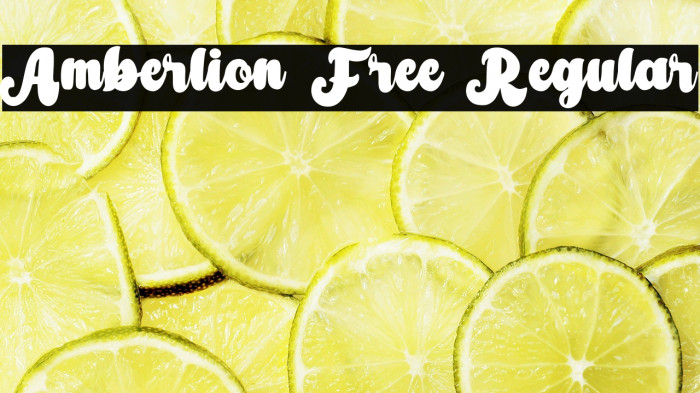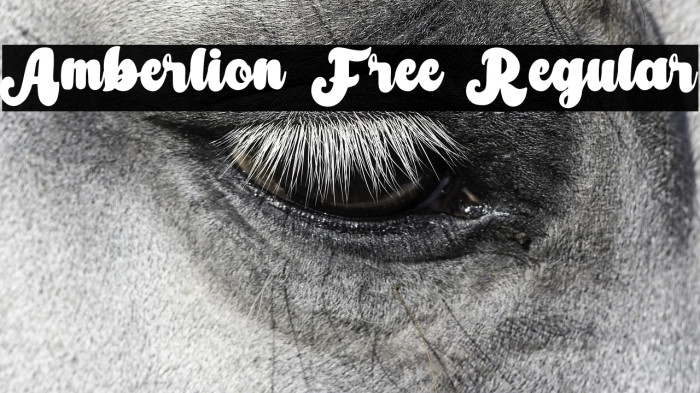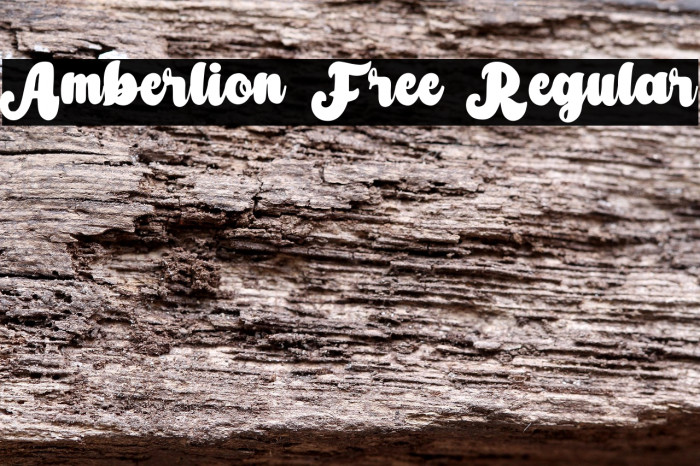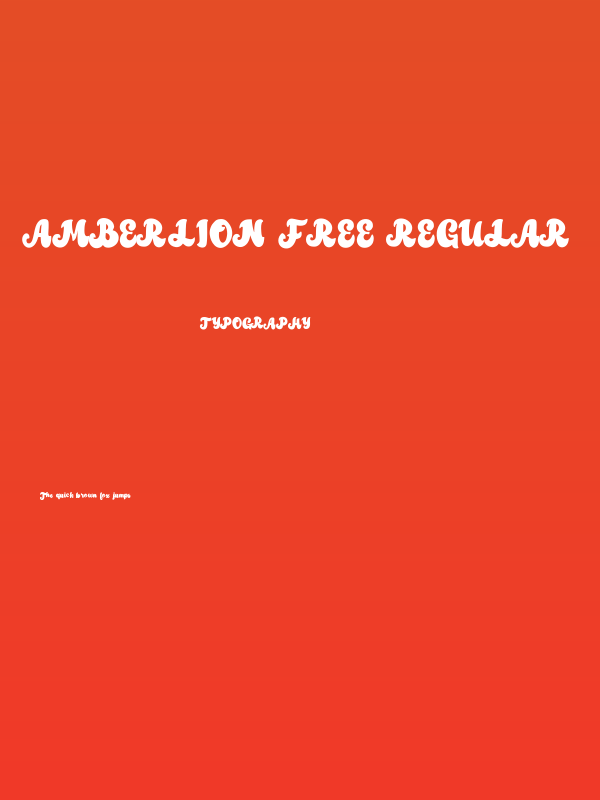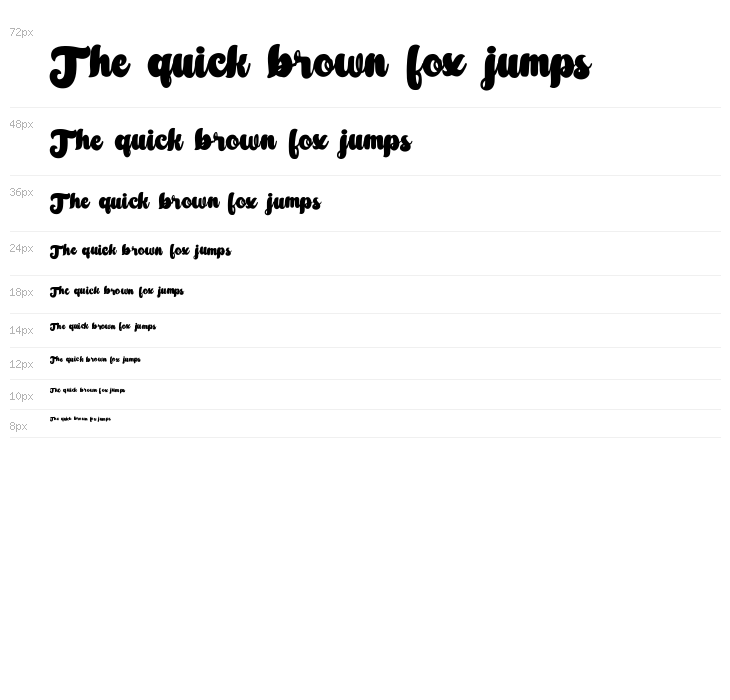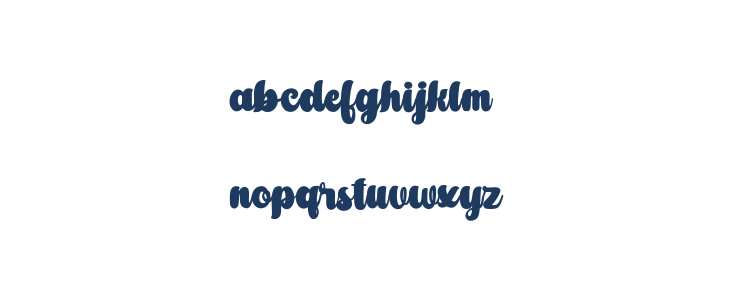
Amberlion Free Regular Font
Amberlion Free Regular Description
This font features a bold and playful style with a decorative flair. The characters are rounded and have a whimsical touch, making them stand out with their unique curves and flourishes. The uppercase letters are particularly eye-catching, with exaggerated serifs and a sense of movement. The lowercase letters maintain the same playful aesthetic, ensuring consistency across text. The numbers and special characters are designed to match the overall style, providing a cohesive look. This font is ideal for projects that require a fun and engaging visual impact.